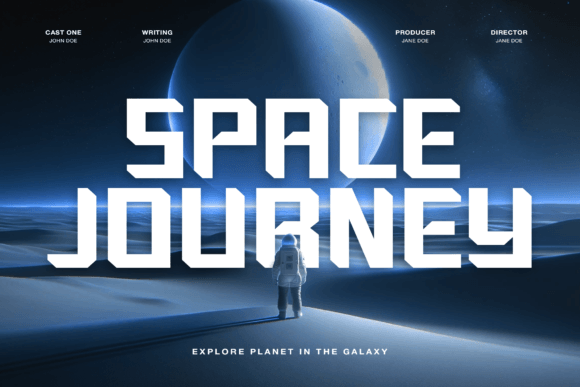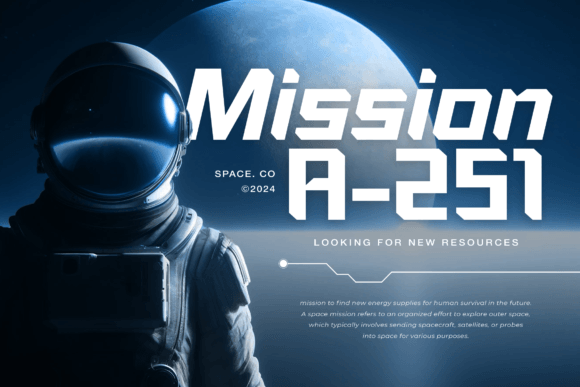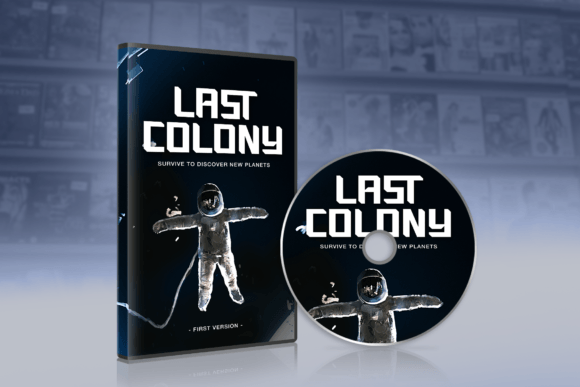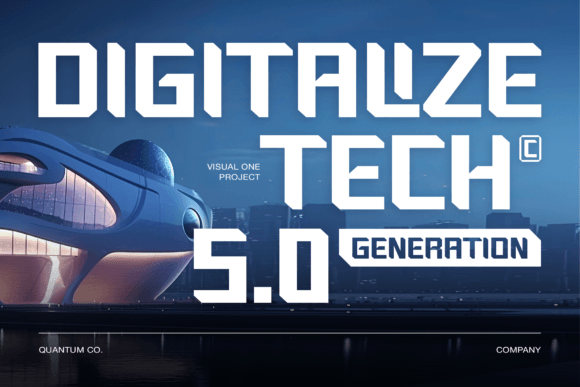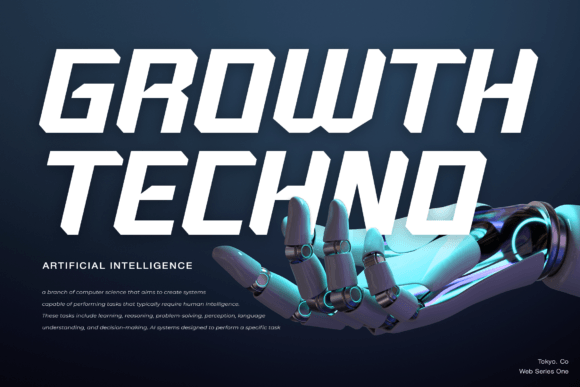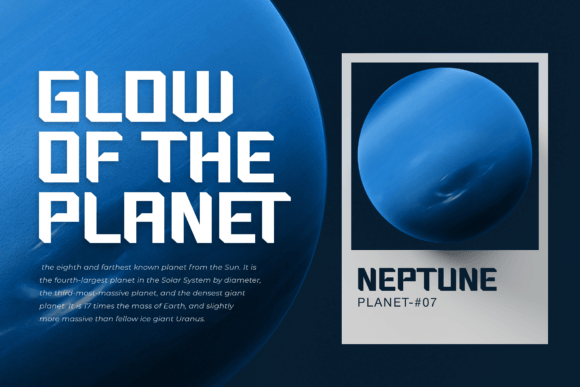
Introducing Black Invader: A Modern Futuristic Display Typeface
In the realm of typography, the right font can elevate a design from mundane to mesmerizing. For projects that demand a cutting-edge, next-generation aesthetic, look no further than the Black Invader font. This modern, futuristic display typeface is specifically crafted to bring a unique appeal to various fields, including advanced technology, sci-fi concepts, eSports, gaming, robotics, and computing.
The Essence of Black Invader
Black Invader is not just a font; it’s an experience. Its sleek lines, futuristic curves, and bold presence make it the perfect choice for designers and crafters looking to push the boundaries of their work. Whether you’re creating a logo, a website, an app, or marketing materials, Black Invader provides the visual impact needed to capture attention and convey innovation.
Key Features of Black Invader Font
- Modern and Futuristic: Black Invader embodies the spirit of the future with its contemporary design. It’s perfect for projects that require a forward-thinking look.
- Versatile: While designed with technology and gaming in mind, Black Invader is versatile enough to be used across various platforms and design applications.
- Highly Legible: Despite its futuristic appeal, Black Invader maintains high legibility, ensuring your message is conveyed clearly and effectively.
- Customizable: With a range of weights and styles, Black Invader offers flexibility, allowing designers to tailor the font to their project’s specific needs.
Applications of Black Invader
The Black Invader font is incredibly versatile, making it suitable for a wide range of applications:
- Technology and Software: For tech startups, software applications, and innovative gadgets, Black Invader communicates a sense of cutting-edge technology.
- eSports and Gaming: In the competitive world of eSports and gaming, standing out is crucial. Black Invader offers a bold, competitive edge.
- Sci-Fi and Robotics: For projects set in the future or involving robotics and artificial intelligence, Black Invader provides an authentic, futuristic feel.
- Branding and Marketing: Use Black Invader to create memorable logos, posters, and advertisements that demand attention.
Tips for Using Black Invader Effectively
To maximize the impact of Black Invader, consider the following tips:
- Pair with Simplicity: Let Black Invader be the focal point by pairing it with simpler fonts for body text.
- Experiment with Colors: While Black Invader looks striking in its native color, experimenting with gradients or metallic effects can enhance its futuristic appeal.
- Consider Size and Weight: Play with different sizes and weights of Black Invader to create visual hierarchy and emphasize key messages.
Black Invader is more than just a font; it’s a statement. It’s for those who dare to be different, who aim to push boundaries, and who wish to convey a sense of innovation and forward-thinking. Whether you’re a designer, a gamer, a tech enthusiast, or a marketing professional, Black Invader offers the tools to make your project stand out in a crowded digital landscape. Embrace the future of design with Black Invader and take your creations to new heights.